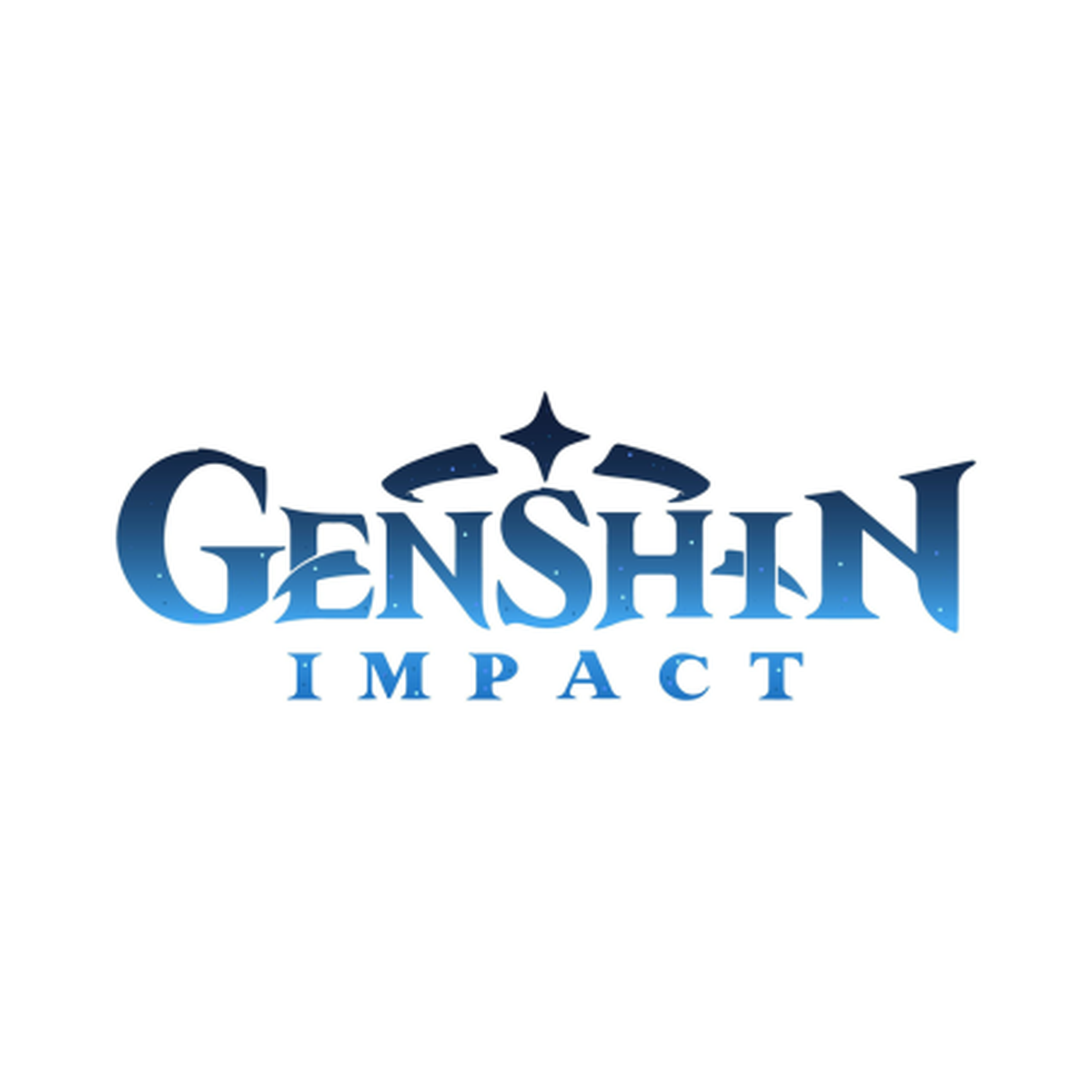
About Genshin Impact
Genshin Impact is an open-world action RPG from Chinese studio HoYoverse, released in September 2020 across PC, mobile, and console. Set in the fantasy world of Teyvat, it built an enormous global audience on the back of its elemental combat system, gacha character roster, and a steady cadence of new regions. Its visual identity leans on a wide, confident display lettering with a faintly classical feel — closer to carved stone than to a modern UI typeface.
That choice does a lot of work. Each of Teyvat's nations borrows from a different real-world culture, and the wordmark has to sit comfortably above all of them without belonging to any one. The answer was a broad glyphic display face with gently flared stems and pointed apexes — letterforms that read as monumental and slightly ceremonial, evoking inscription without tipping into full serif formality. It anchors everything from splash screens to event banners across dozens of localisations.
What font does Genshin Impact use?
Genshin Impact uses The Genshin Impact wordmark is custom lettering rather than a retail typeface. The style is a flared glyphic display sans — broad proportions, stems that widen slightly toward the terminals, and sharp apexes on A, M and W, in the tradition of faces like Friz Quadrata and Optima.
Where this style works
Flared glyphic display faces work wherever you want gravitas without the stiffness of a true serif: fantasy and RPG title cards, book covers in the epic and mythic registers, museum and exhibition identity, premium spirits and cosmetics packaging, and any wordmark that should feel carved rather than typed. The subtle stem flare reads as craft at large sizes while still holding together in a small header.
What fonts are similar to the Genshin Impact logo?
Friz Quadrata, Optima, Albertus and Trajan Sans all share the flared-stem glyphic character. Optima is the closest widely-available match for the tapering stems; Albertus is nearer the pointed apexes.